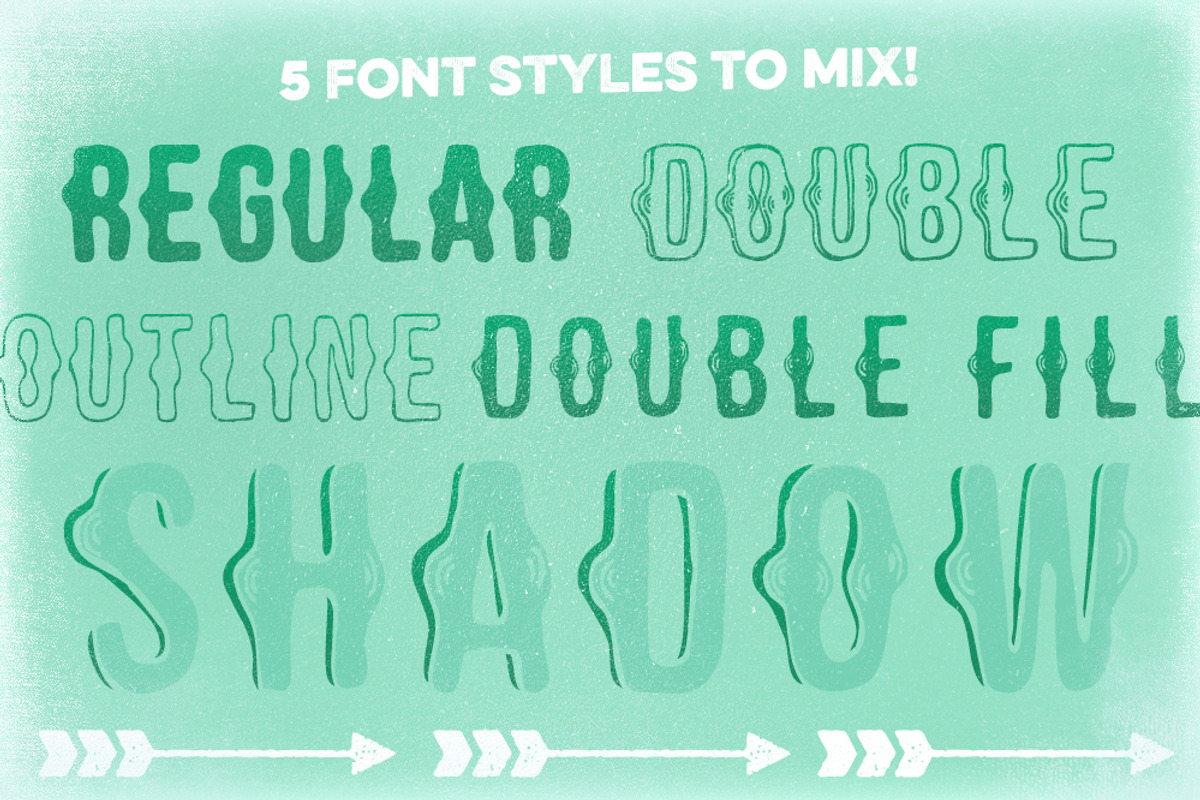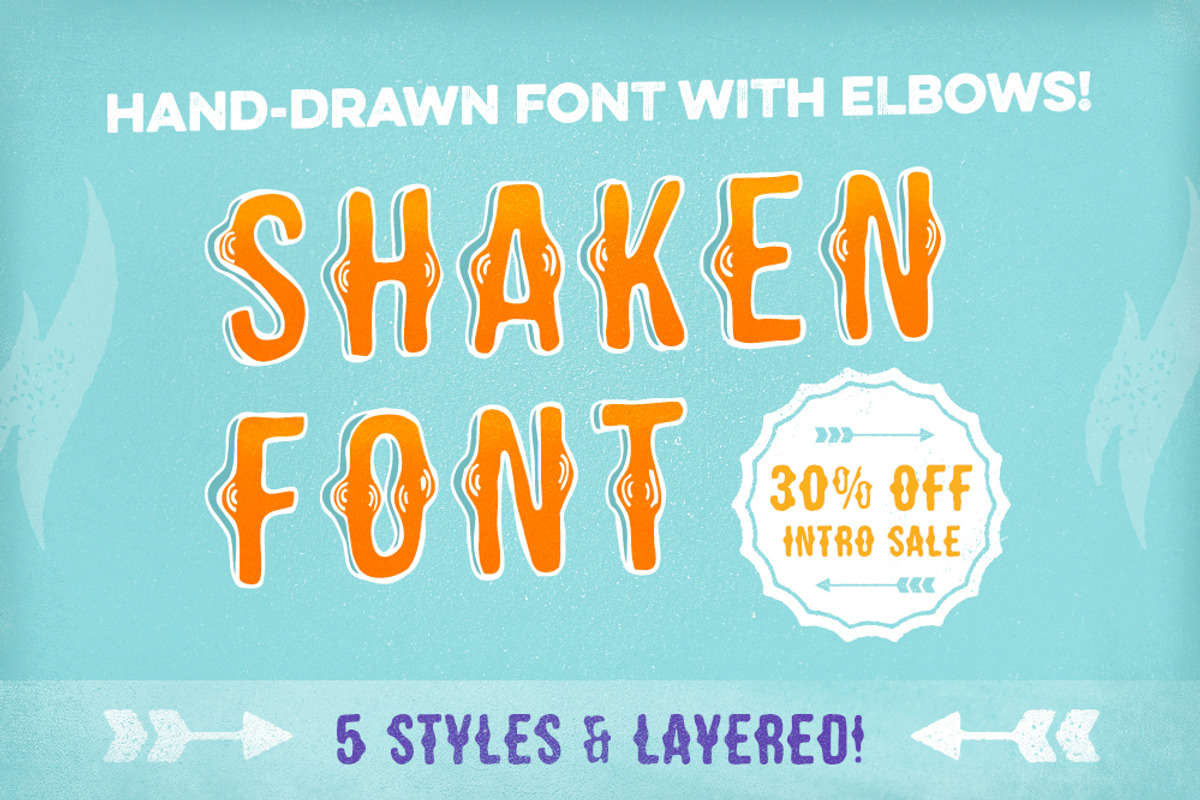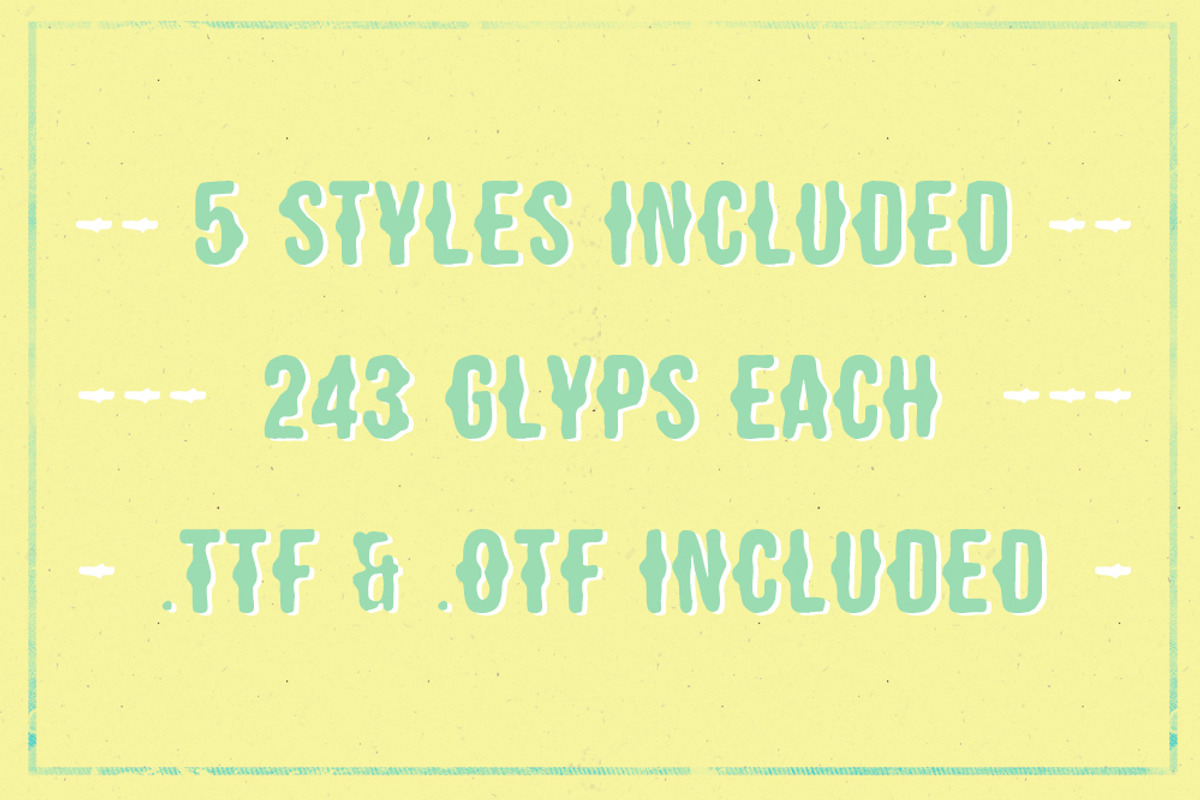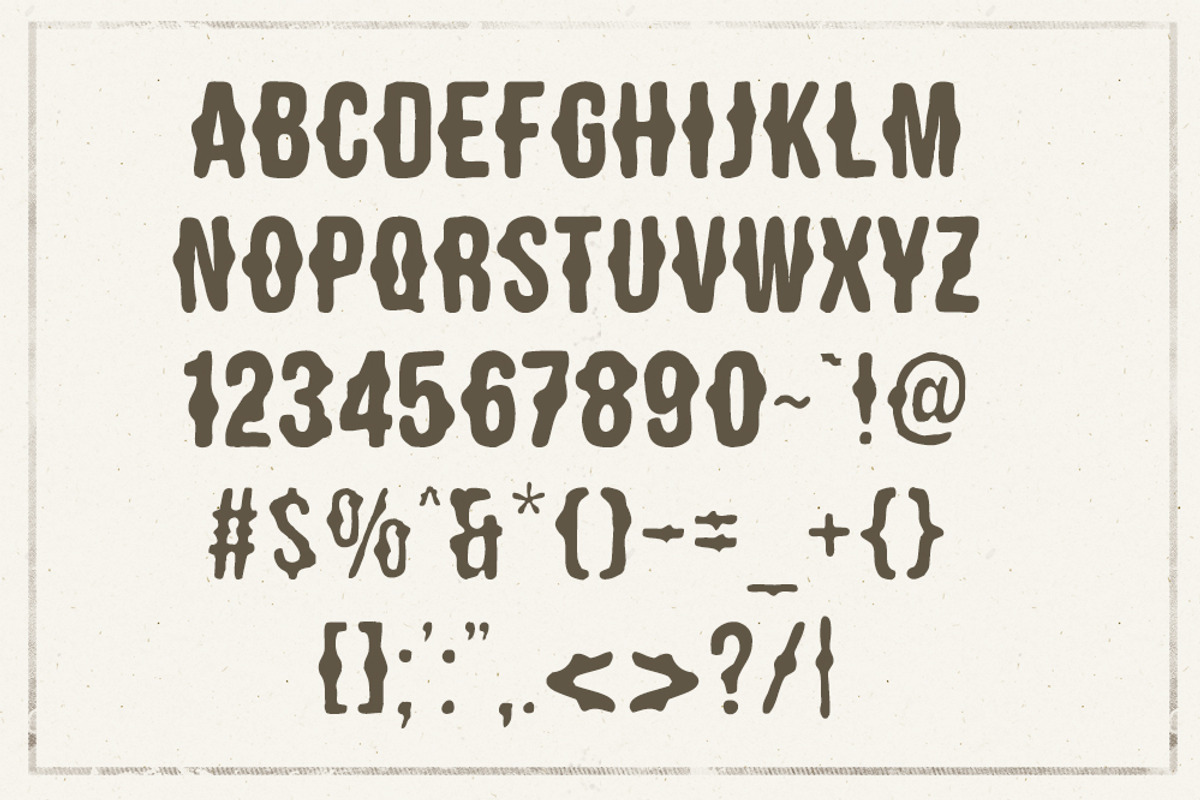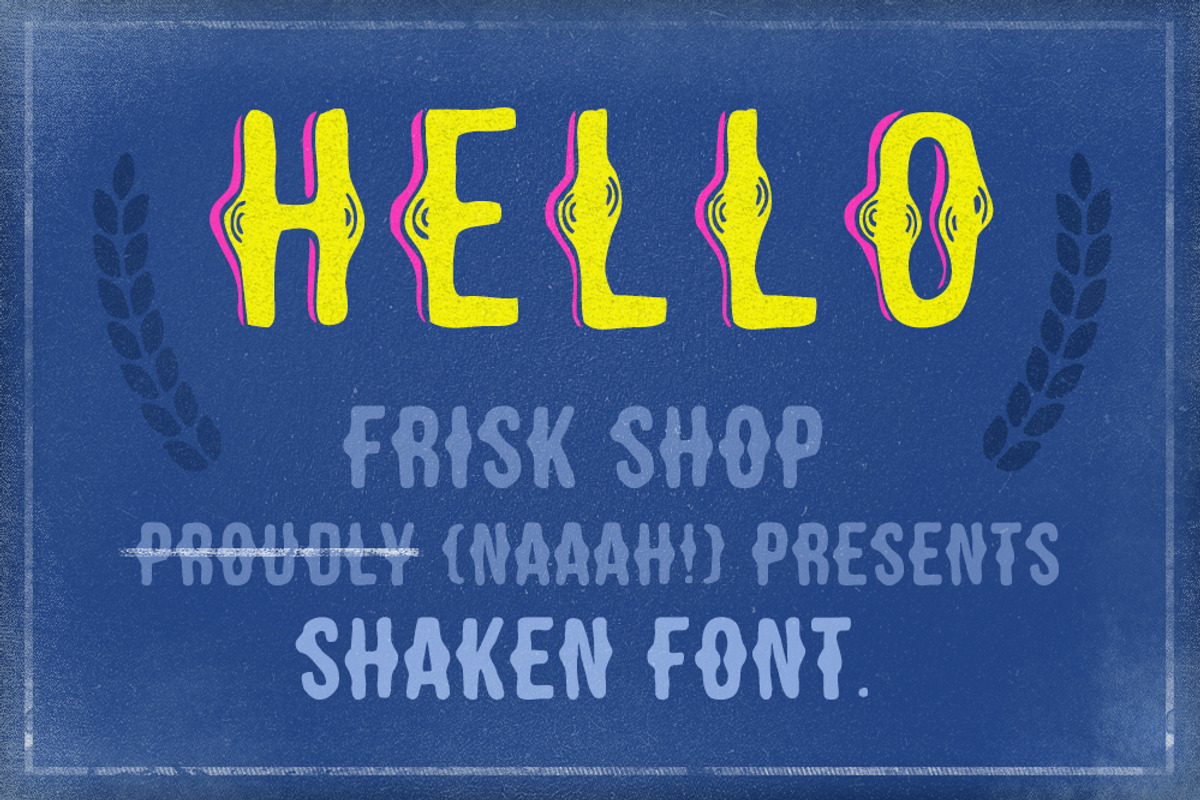
'Shaken' is hand-drawn layered font system designed with love for display, narrow characters. It's perfect for headers, remarkable posters, retro illustrations and almost all kind of hand-drawn related purposes.
'Shaken' Font System contains five fonts inside (for more details please see 2nd screenshot): • 'Shaken Regular' • 'Shaken Outline' • 'Shaken Double Fill' • 'Shaken Double Shadow'
You can mix them to achieve the effect you like the most (see 1st & 3rd screenshots with mixed styles).